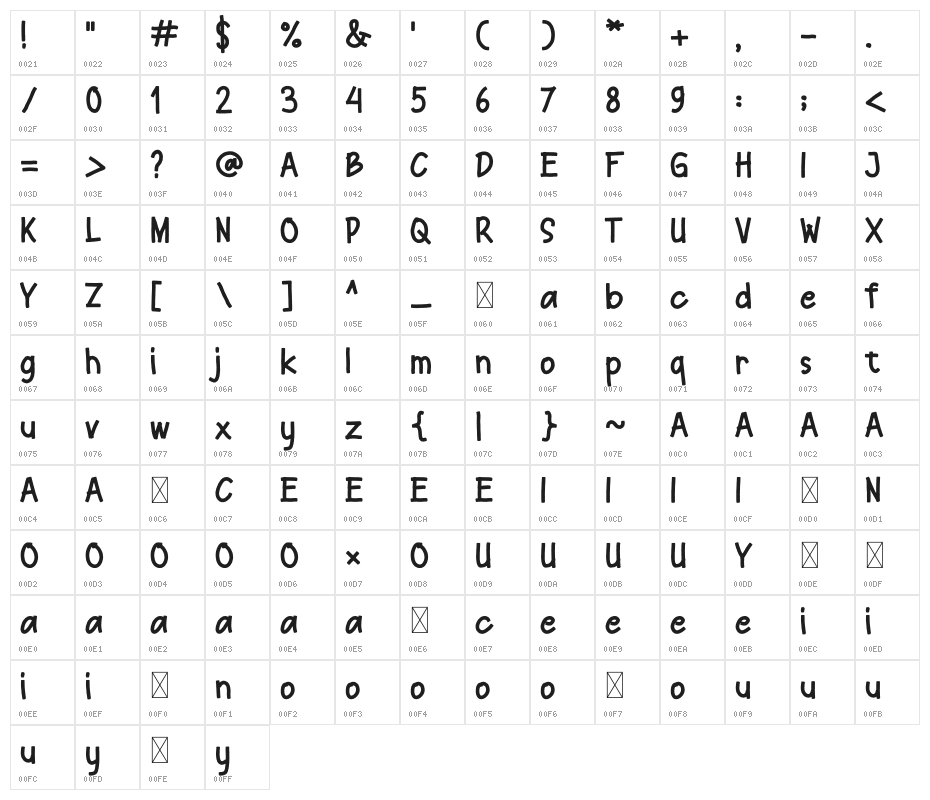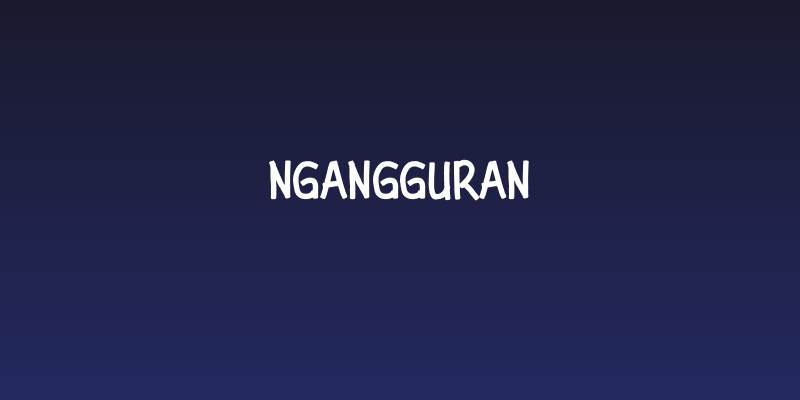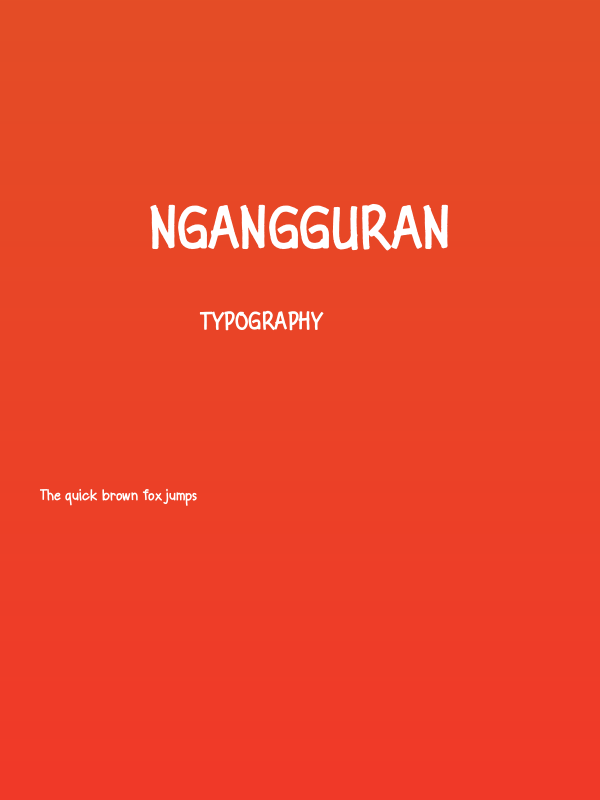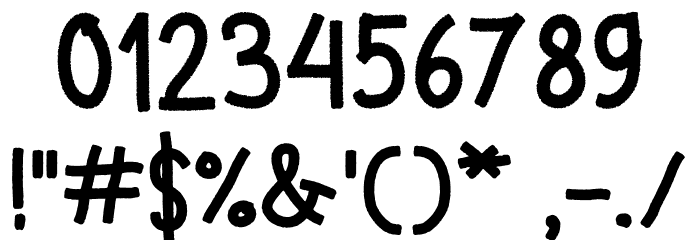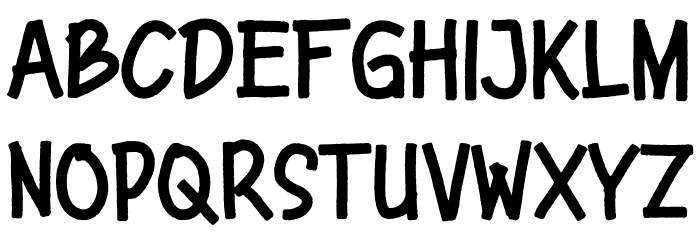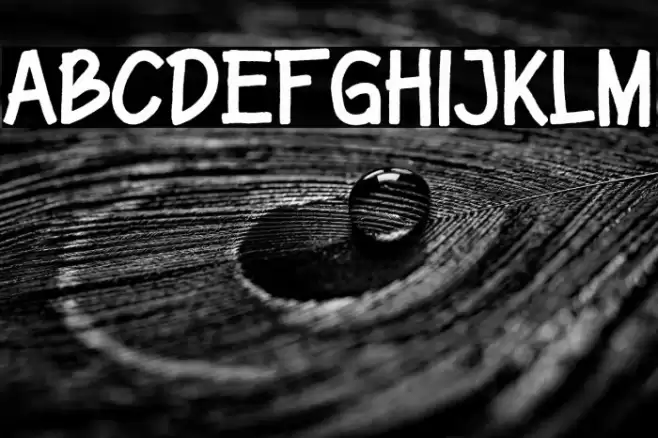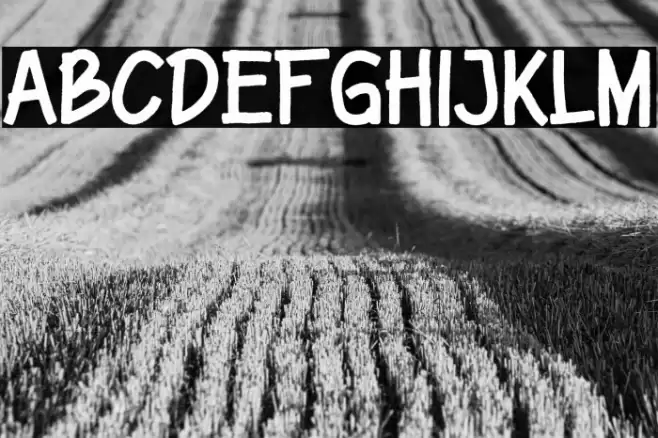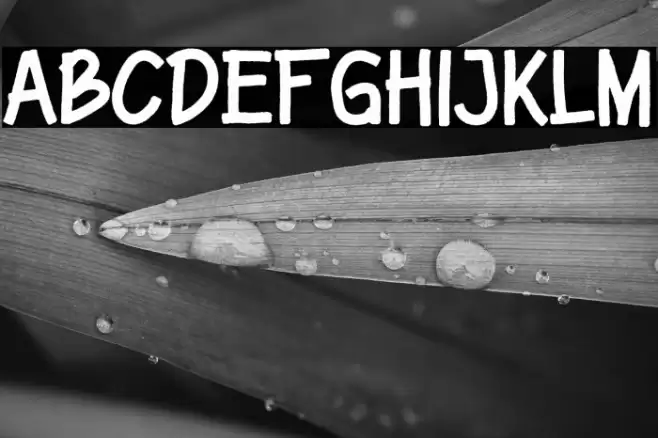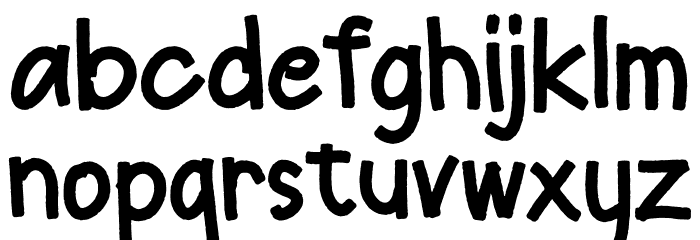
Ngangguran Font
Ngangguran Description
This font features a playful and informal handwritten style, characterized by its bold and slightly irregular strokes. The letters have a casual, friendly appearance, with rounded edges and a consistent thickness that gives it a cohesive look. The uppercase and lowercase letters maintain a uniform height, contributing to its legibility. Numbers and special characters are designed to match the playful aesthetic, making them suitable for creative and informal contexts. The overall design is approachable and lively, ideal for projects that require a personal touch.
| Use Case | Headlines, Posters, Informal Text |
| Proposed Projects | Ideal for children's books, greeting cards, posters, and playful branding projects. |